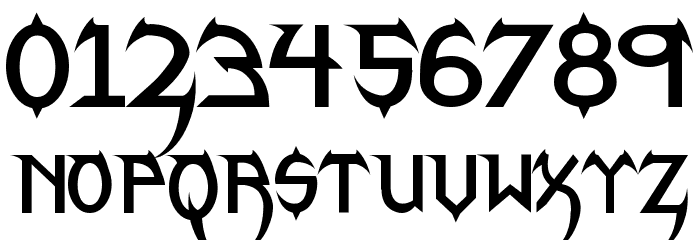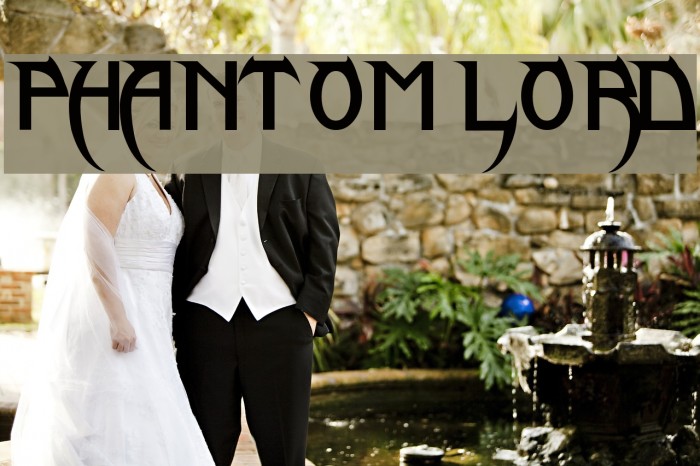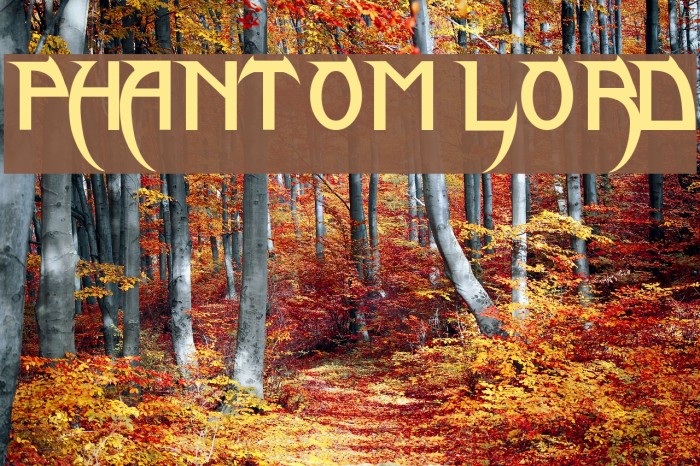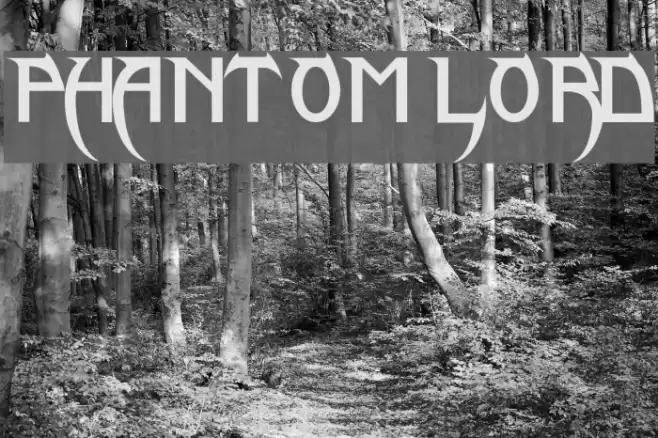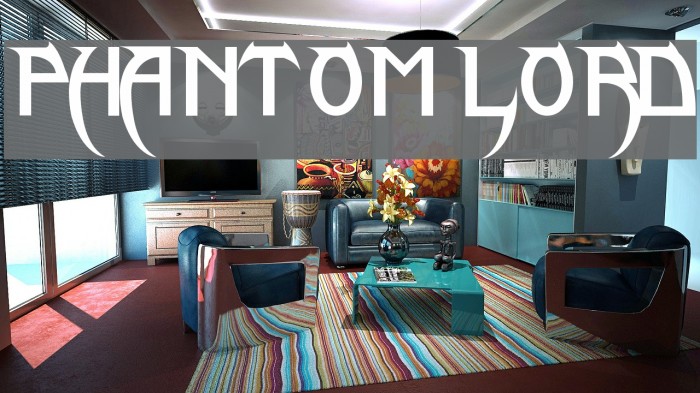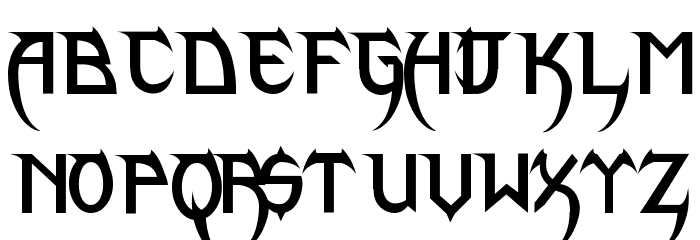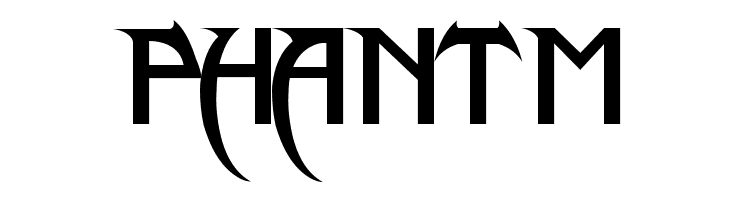
Phantom Lord Font
Phantom Lord Description
This font features a bold and aggressive design with sharp, angular edges and pointed serifs that give it a distinctly gothic and medieval appearance. The characters are intricately designed with a high level of detail, making them stand out with a dramatic flair. The uppercase and lowercase letters maintain a consistent style, with the uppercase being slightly more elaborate. Numbers and special characters are equally stylized, ensuring a cohesive look across all text. The font's unique style makes it ideal for projects that require a strong, eye-catching typeface.
| Overall Style | Gothic, Medieval |
| Use Case | Logos, Posters, Titles |
| Proposed Projects | Ideal for fantasy-themed designs, video game titles, band logos, and posters. |